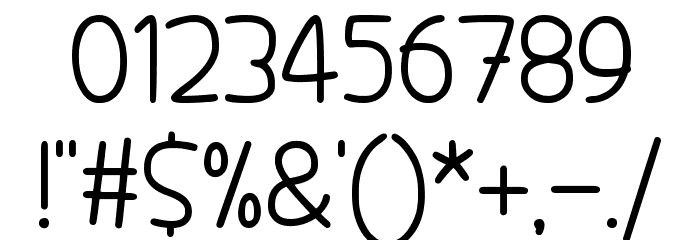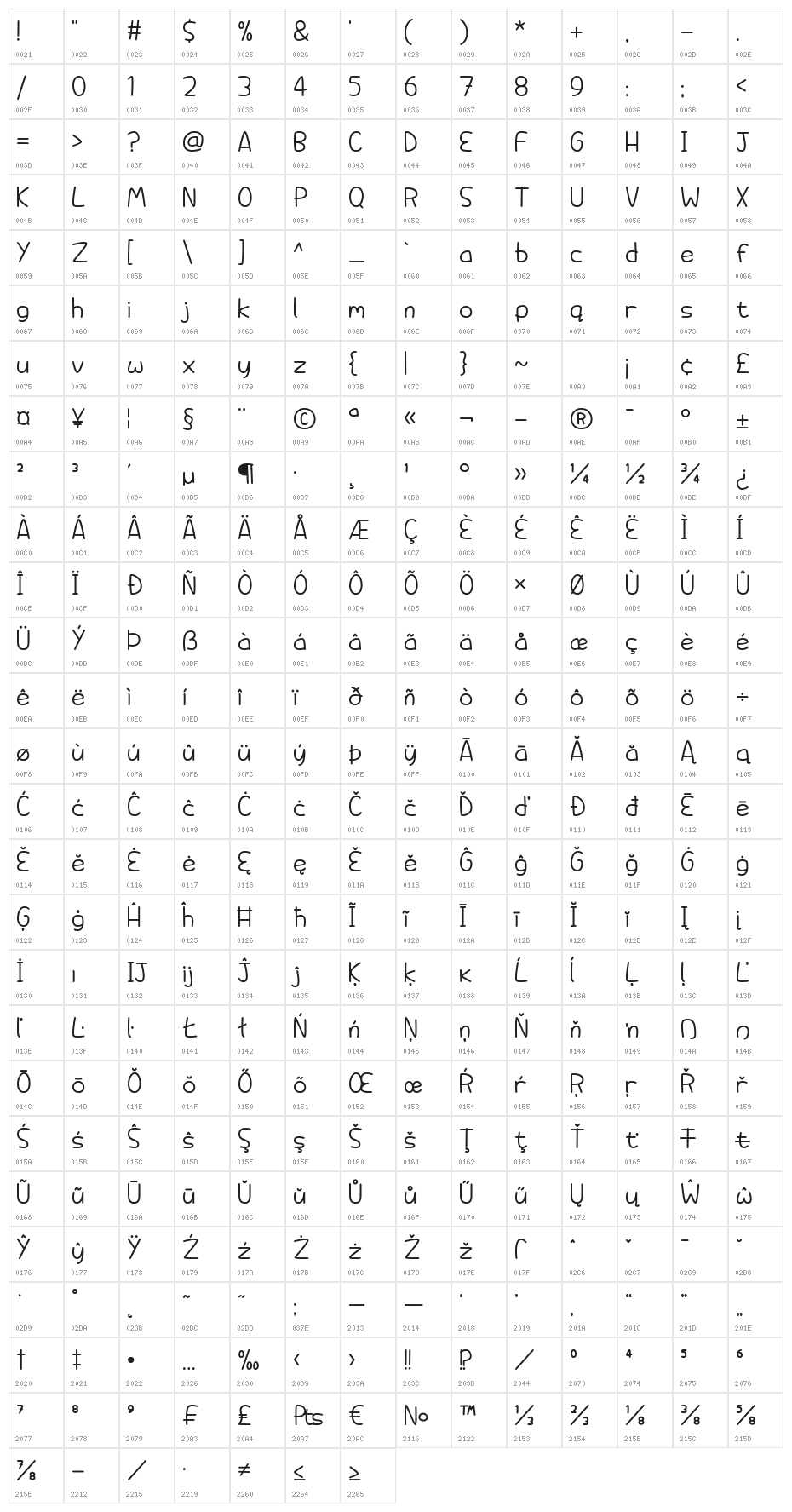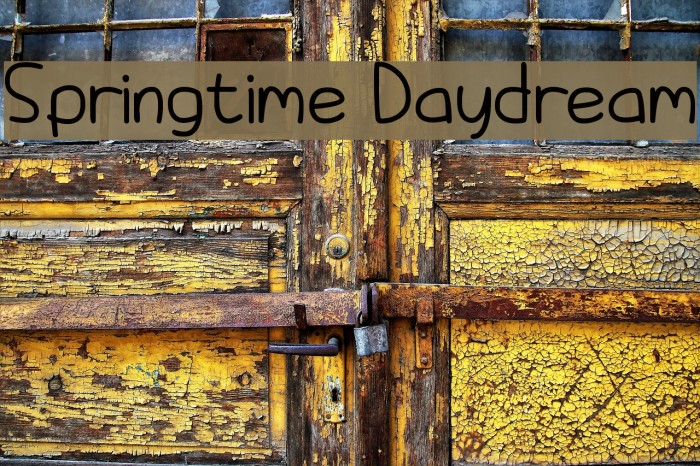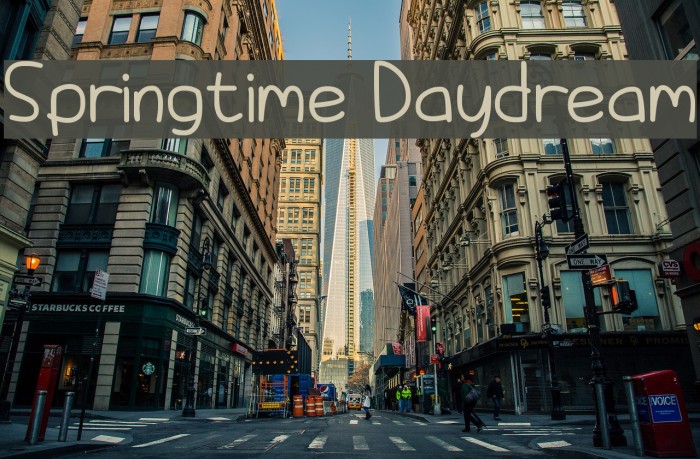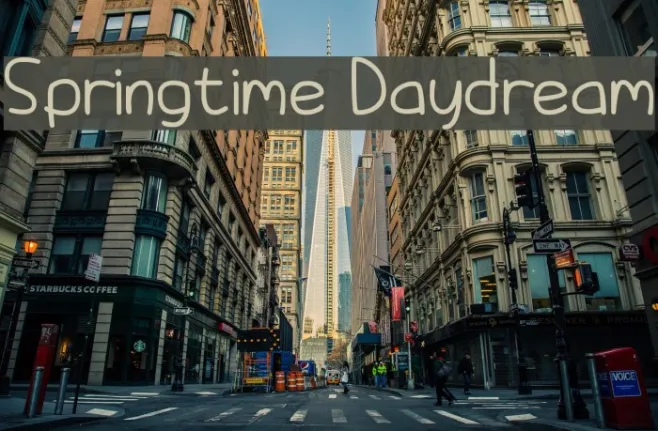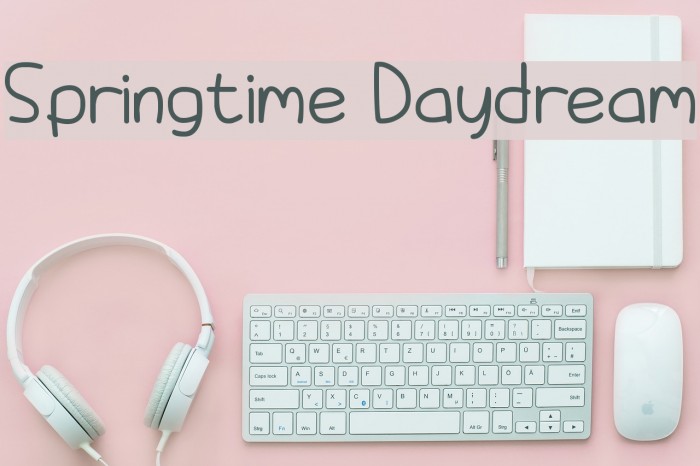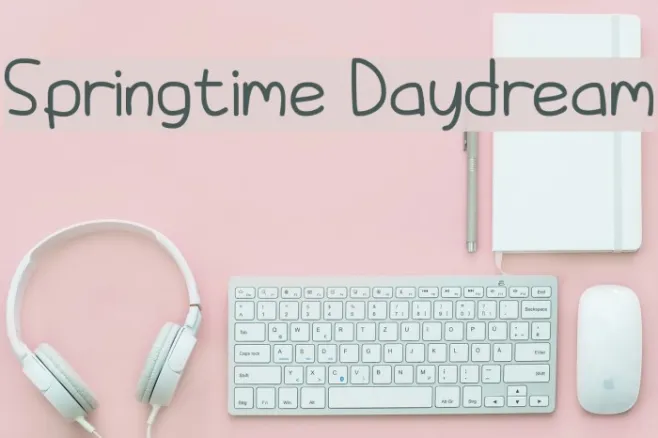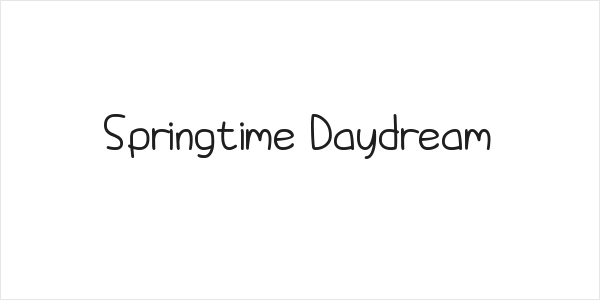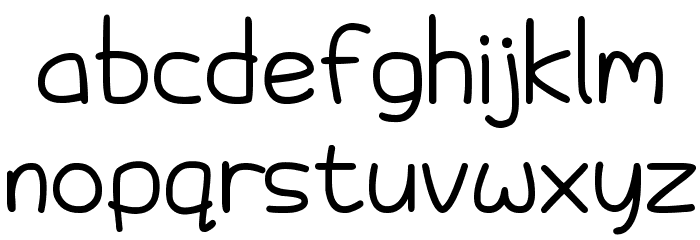
Springtime Daydream Font
Springtime Daydream Description
This playful and whimsical font features rounded, smooth edges and a casual, handwritten style. Each character is crafted with a consistent stroke width, giving it a uniform appearance while maintaining a friendly and approachable vibe. The letters are slightly elongated, adding a touch of elegance to the overall design. The font's simplicity and clarity make it highly legible, even at smaller sizes. Its informal nature is perfect for projects that require a personal touch, such as greeting cards, children's books, or playful branding. The numerals and special characters are designed to match the letters' style, ensuring a cohesive look across all text elements.
| Use Case | Headlines, Informal text, Branding |
| Proposed Projects | Ideal for greeting cards, children's books, playful branding, and informal invitations. |